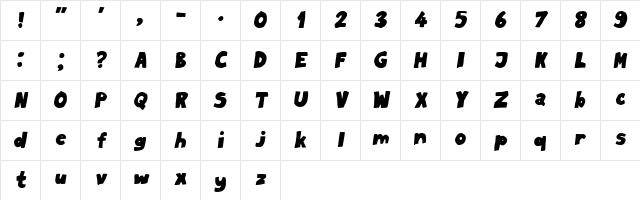
Milord Book Italic
Milord Book Family
Milord Book Italic
Design Context for Milord Book
Milord Book is a composed and adaptable typeface that performs quietly and consistently across a wide range of design contexts. The slanted form adds forward momentum and visual energy.
Pro Tip: Use Milord Book for emphasis, pull quotes, and subheadings where its slanted energy can add rhythm to the layout.